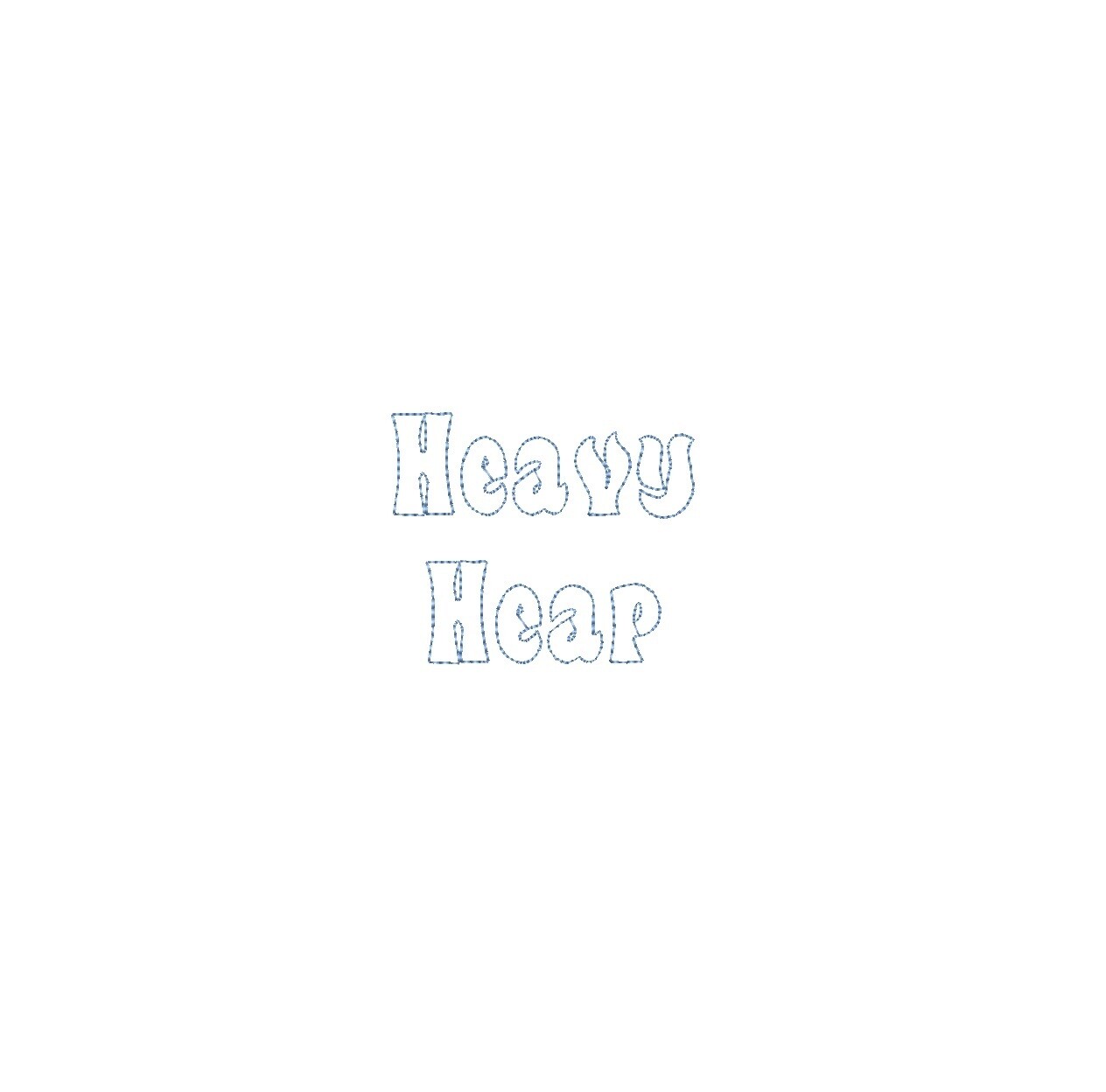
Elevate your embroidery with the Heavy Heap Bean Stitch Outline ESA font. Crafted for compatibility with Wilcom Studio e4.5.6 and Hatch 3 versions and beyond, this font brings a bold and impactful touch to your designs. The robust bean stitch outline style adds depth and character, perfect for monograms, labels, and decorative elements. Seamlessly integrate and achieve precise stitching, enhancing your embroidery projects. Explore a world of creative possibilities in Wilcom Studio and Hatch software with the Heavy Heap Bean Stitch Outline ESA font. Elevate your designs and make a statement today with this exceptional font.